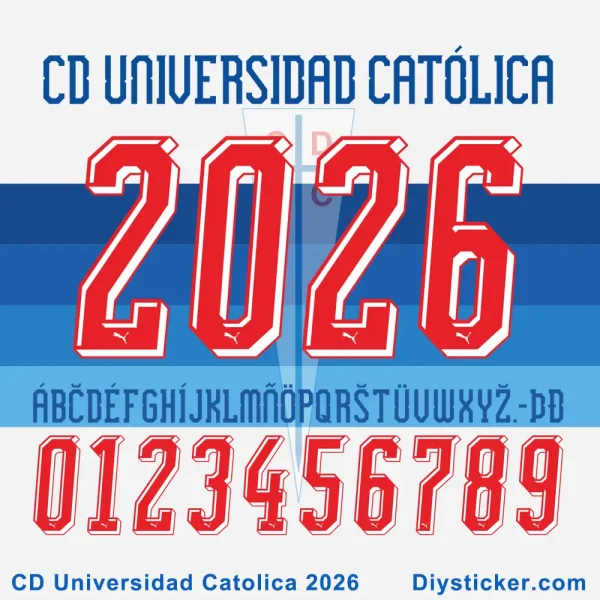
Club Deportivo Universidad Católica 2026 Font
Introducing the official Club Deportivo Universidad Católica 2026 font – the exact typography used in the club’s official jerseys and Puma-branded visuals. This complete digital font package is designed for fans, designers, and creators who want to incorporate authentic CDUC style into their projects.